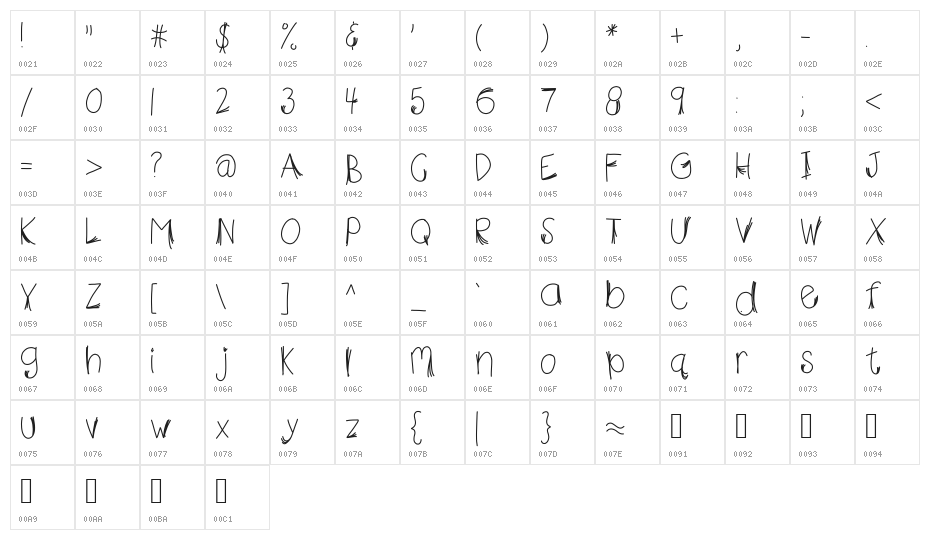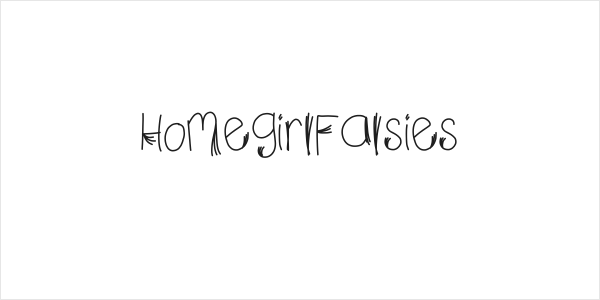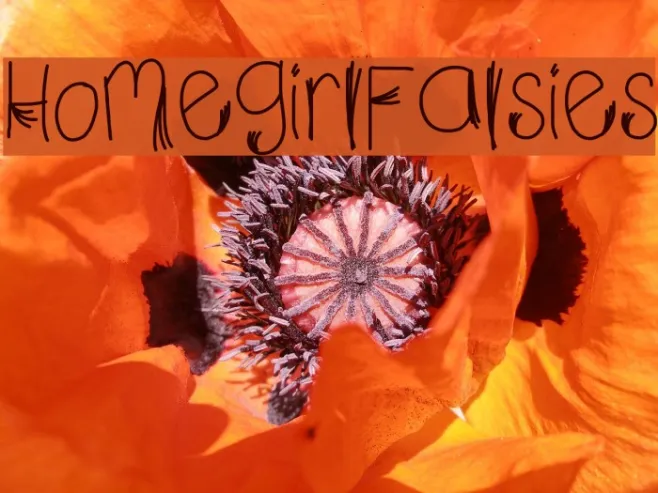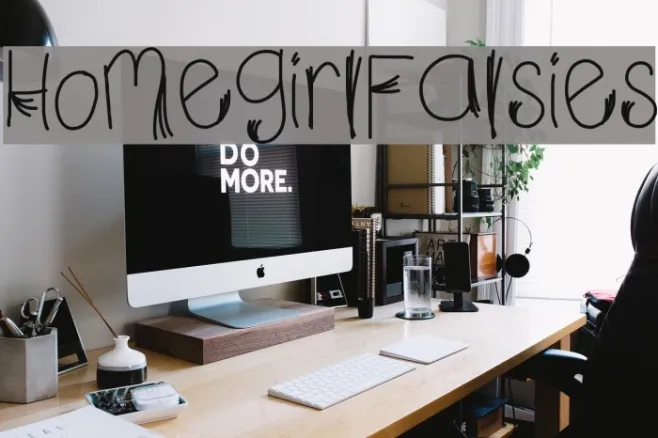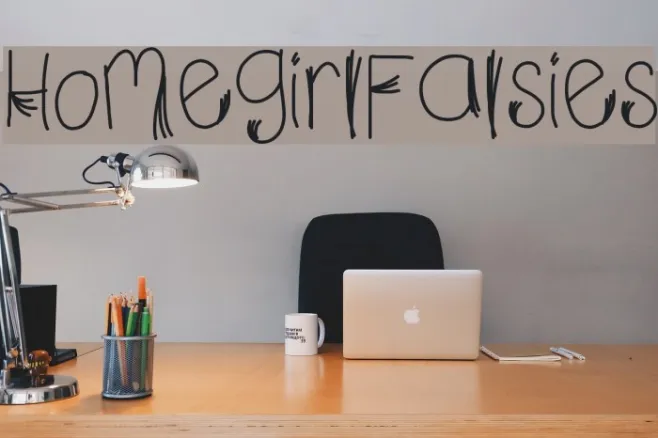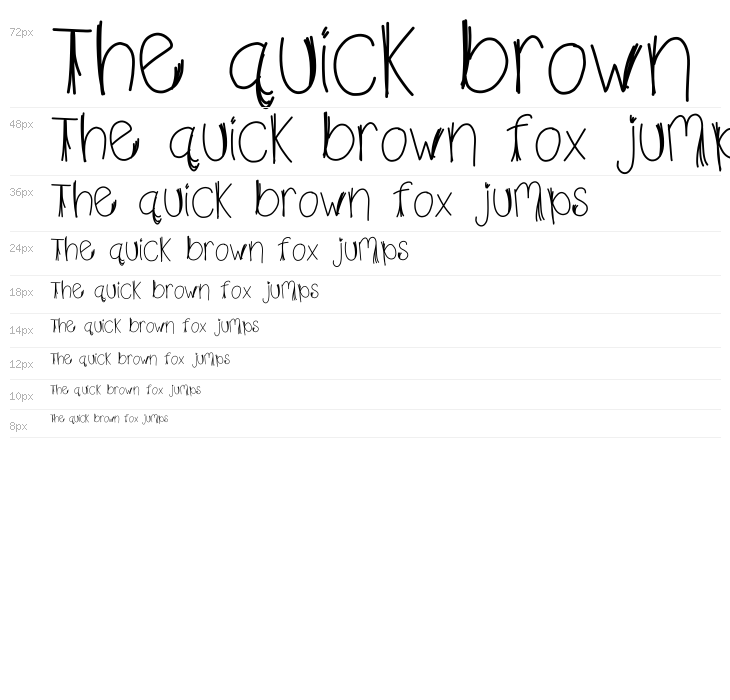
HomegirlFalsies Font
HomegirlFalsies Description
This font features a playful and whimsical style, characterized by its hand-drawn appearance and unique brush-like strokes. The letters have an uneven, organic quality, with varying line thicknesses that give it a dynamic and lively feel. The uppercase and lowercase letters maintain a consistent style, with exaggerated curves and loops that add to its charm. Numbers and special characters are designed with the same playful aesthetic, making the font versatile for creative projects. Its distinctive style makes it stand out, perfect for adding a personal touch to any design.